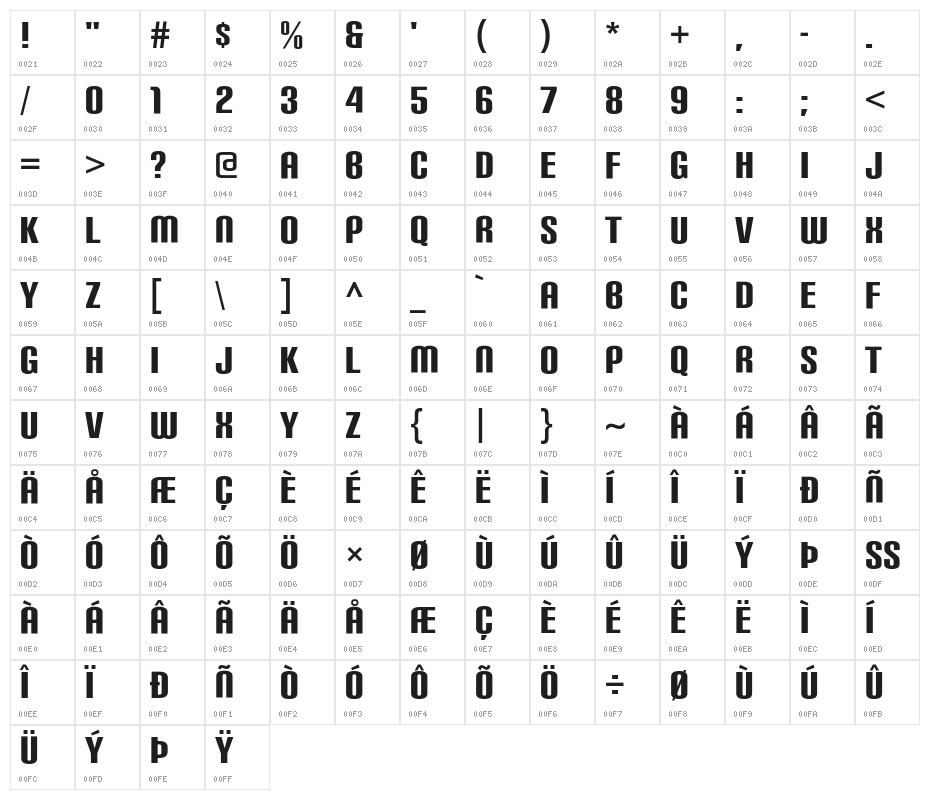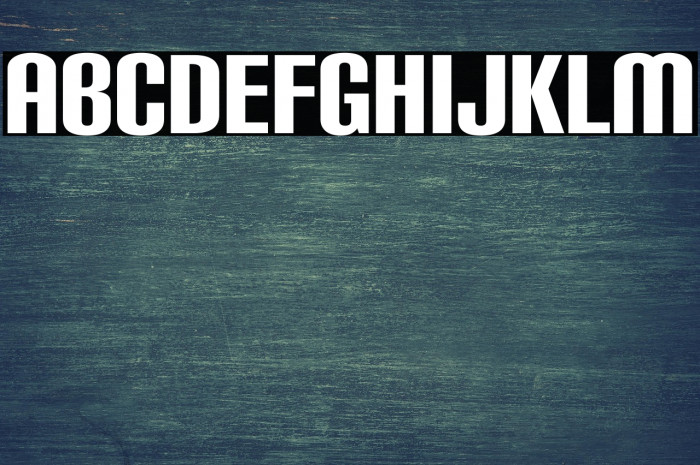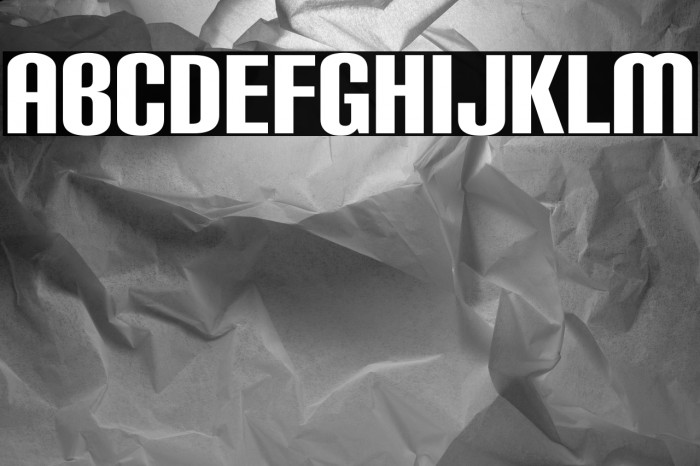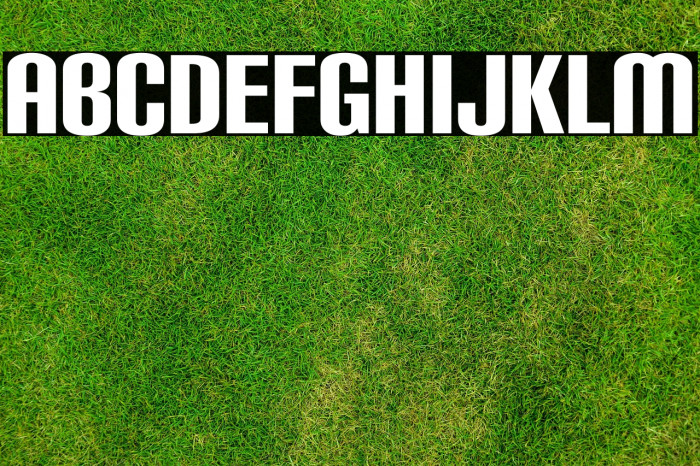
CarbonBl-Regular Font
CarbonBl-Regular Description
This font features bold, geometric letterforms with a strong presence. The characters are uniformly thick, giving it a robust and modern appearance. The uppercase letters are particularly striking, with a consistent height and width that convey a sense of stability and strength. The numerals and special characters maintain this boldness, ensuring a cohesive look across all text elements. The font's design is clean and straightforward, making it suitable for a variety of applications where clarity and impact are essential.
Use CaseHeadlines, Logos, Signage
Proposed ProjectsIdeal for branding, advertising, headlines, and signage where a bold statement is needed.